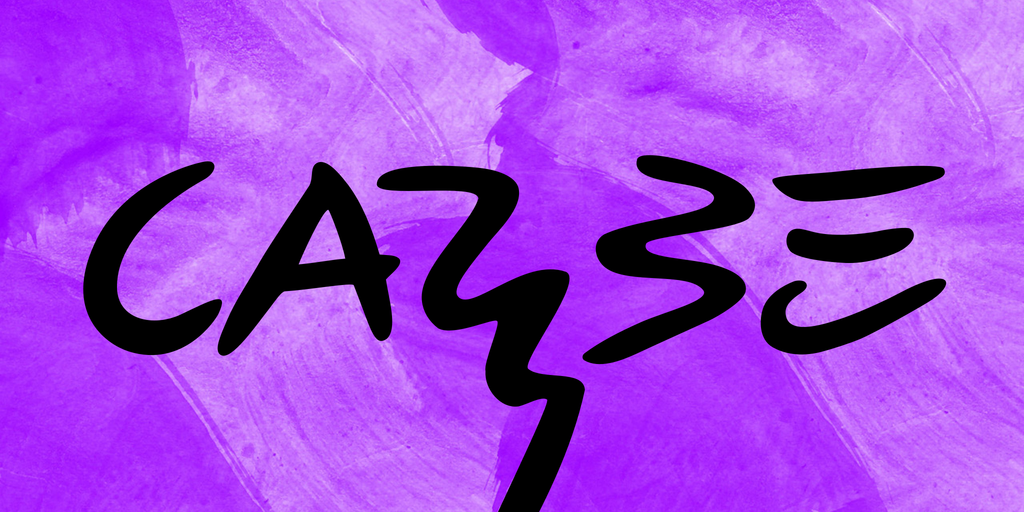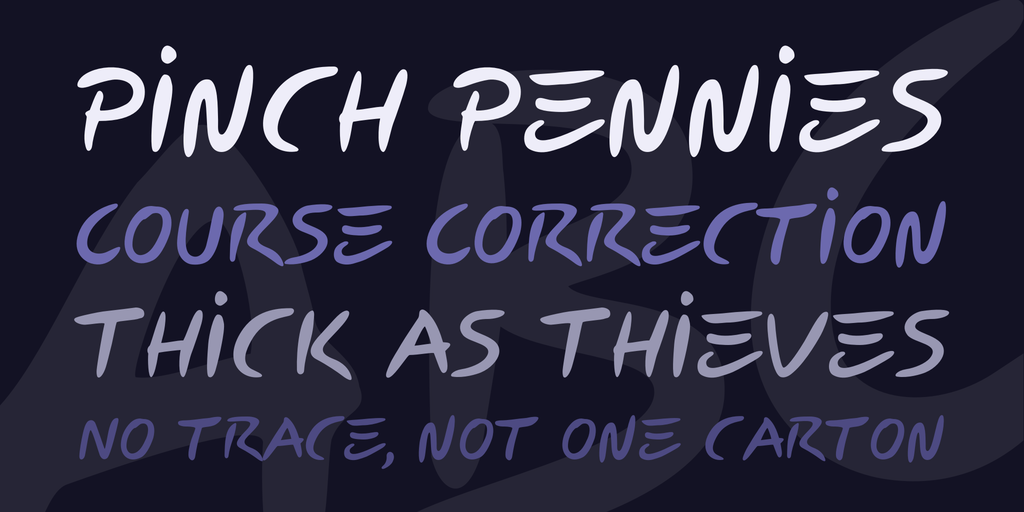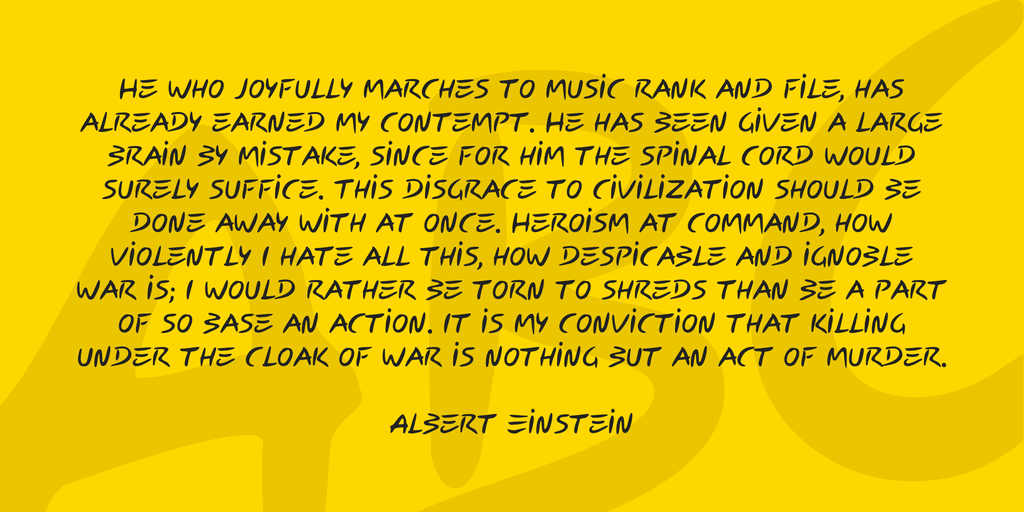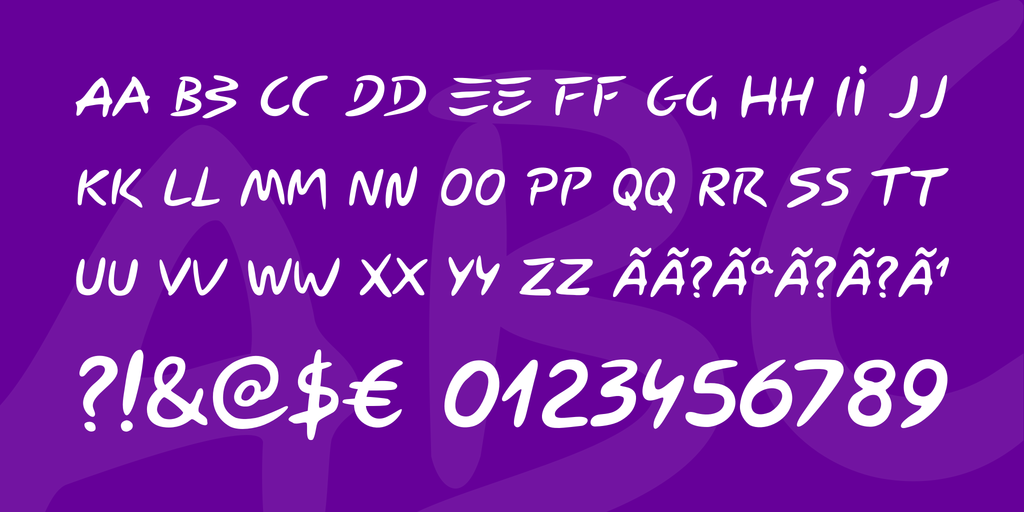
Carybe Font
Carybe Font Made by Genilson L. Santos
CARYBÉ is a script typeface inspired by the signature of the painter and sculptor Carybé (1911 — 1997).